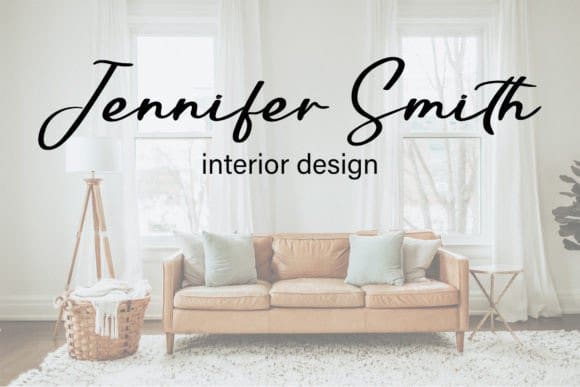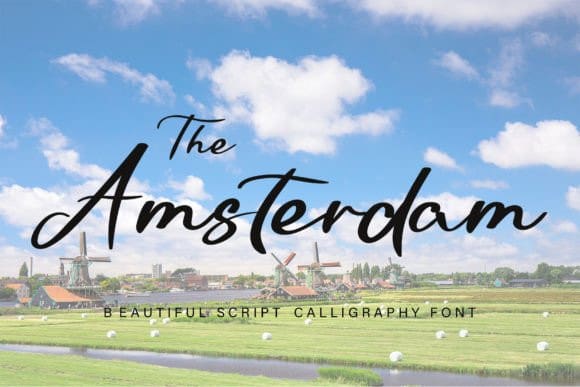
The Amsterdam Font
The Amsterdam Font is a sweet and friendly handwritten font. Fun and relaxed, this font is ideal for writing wedding invitations, cards, or any other design that might need a lovely touch!